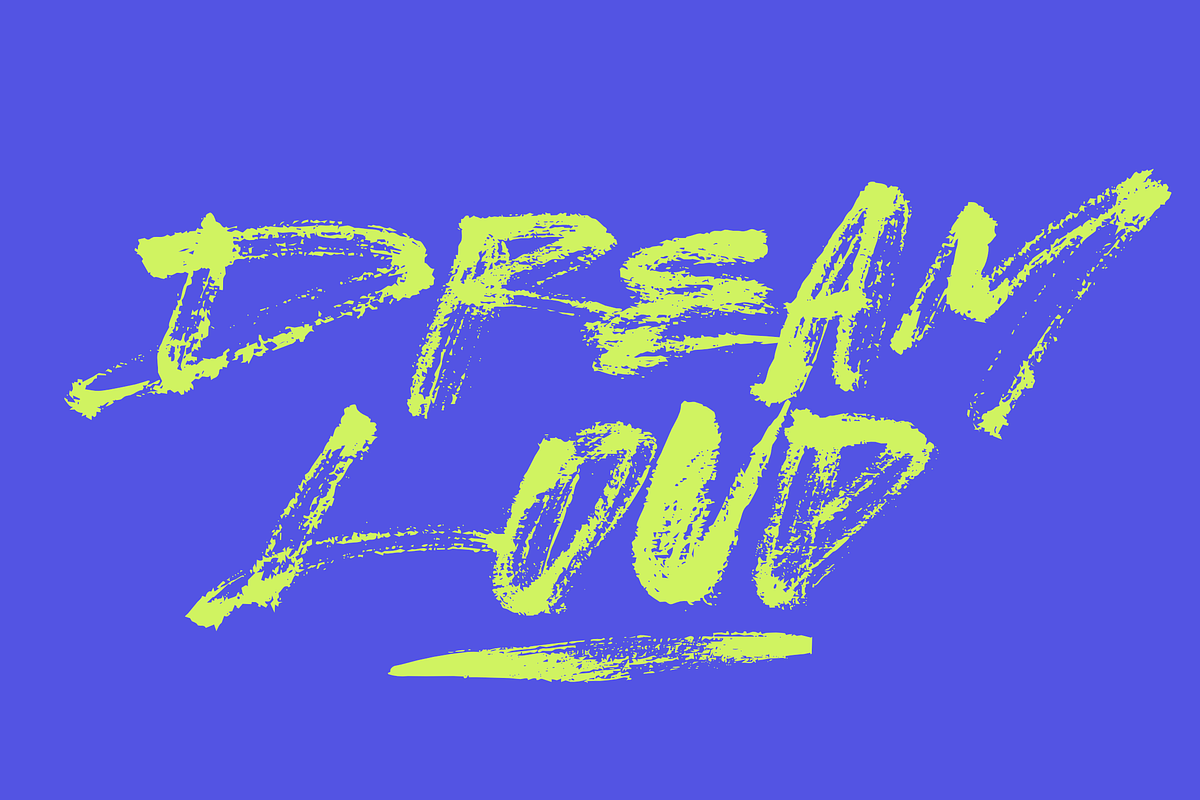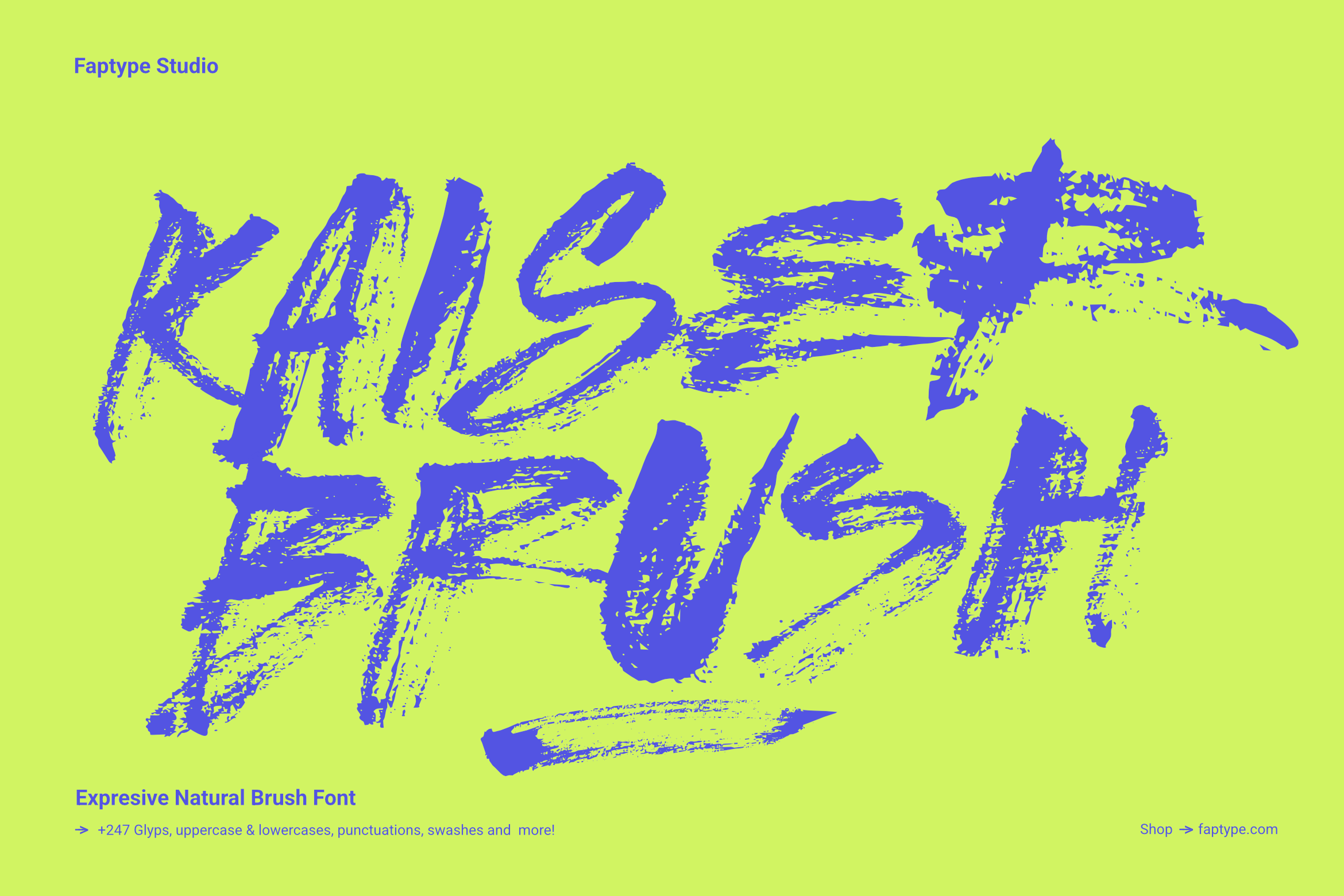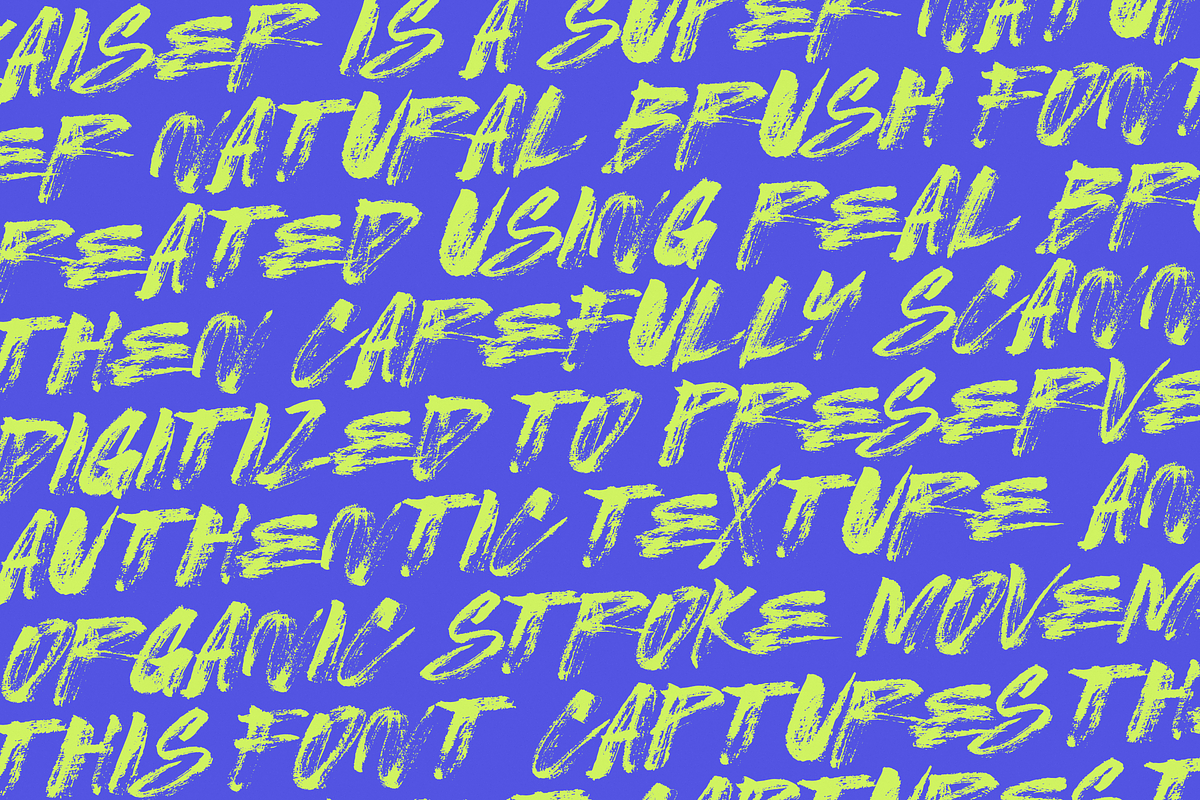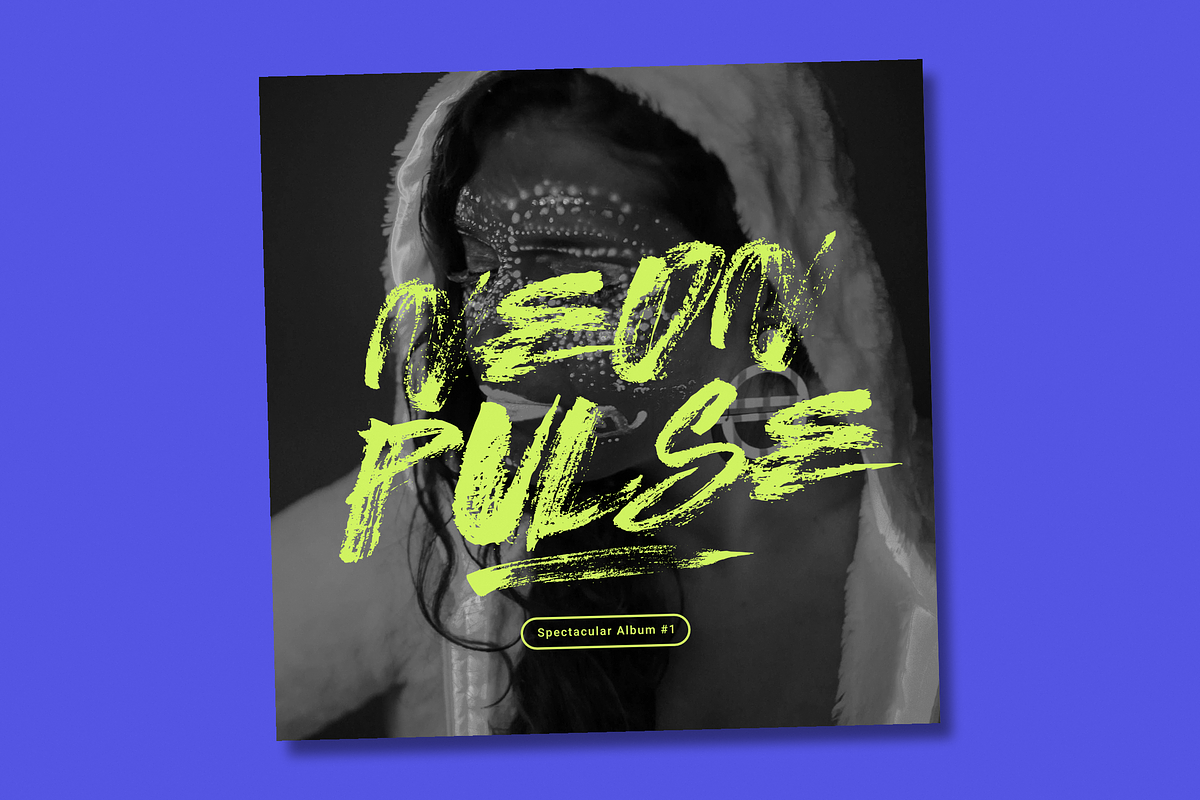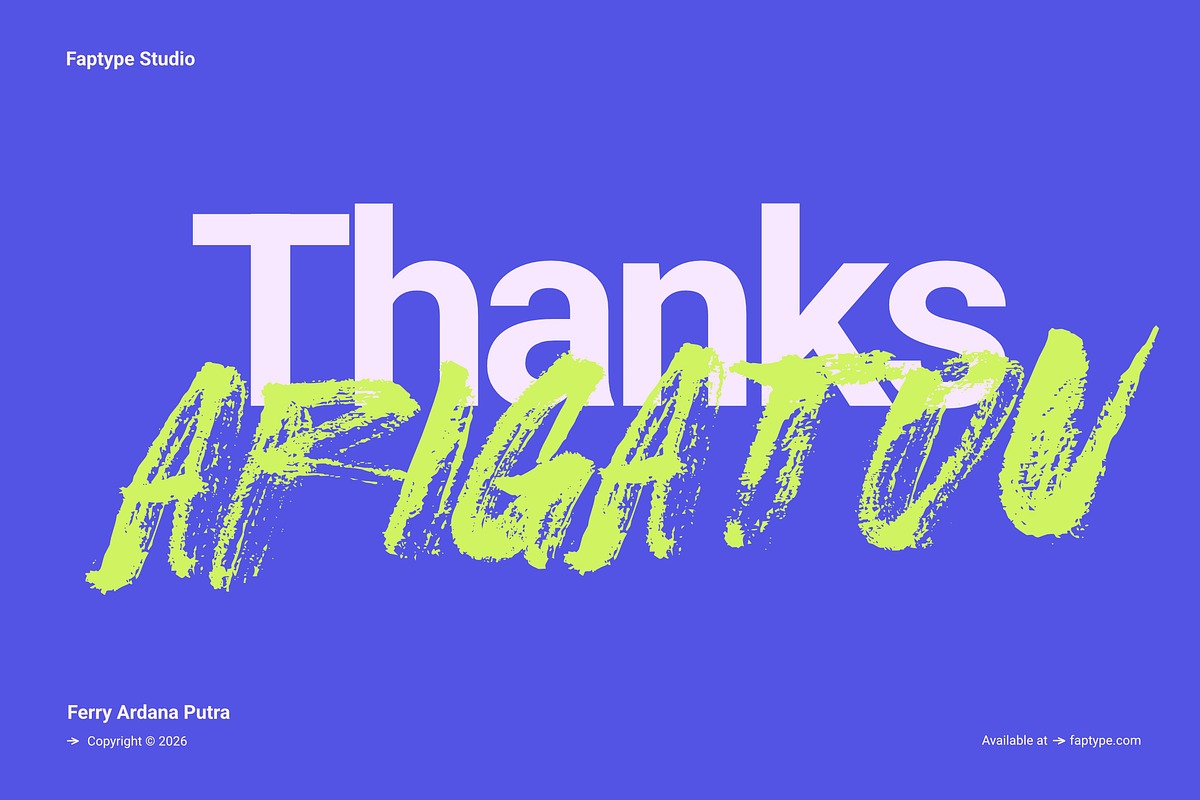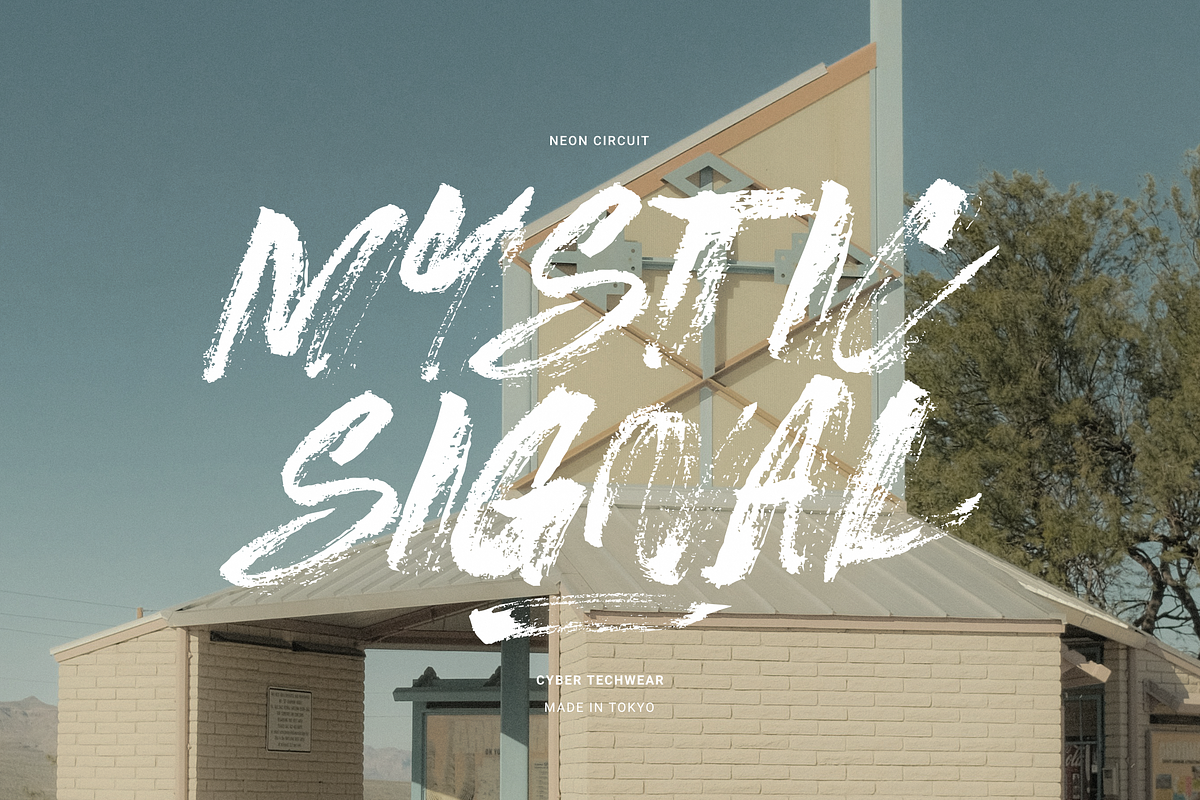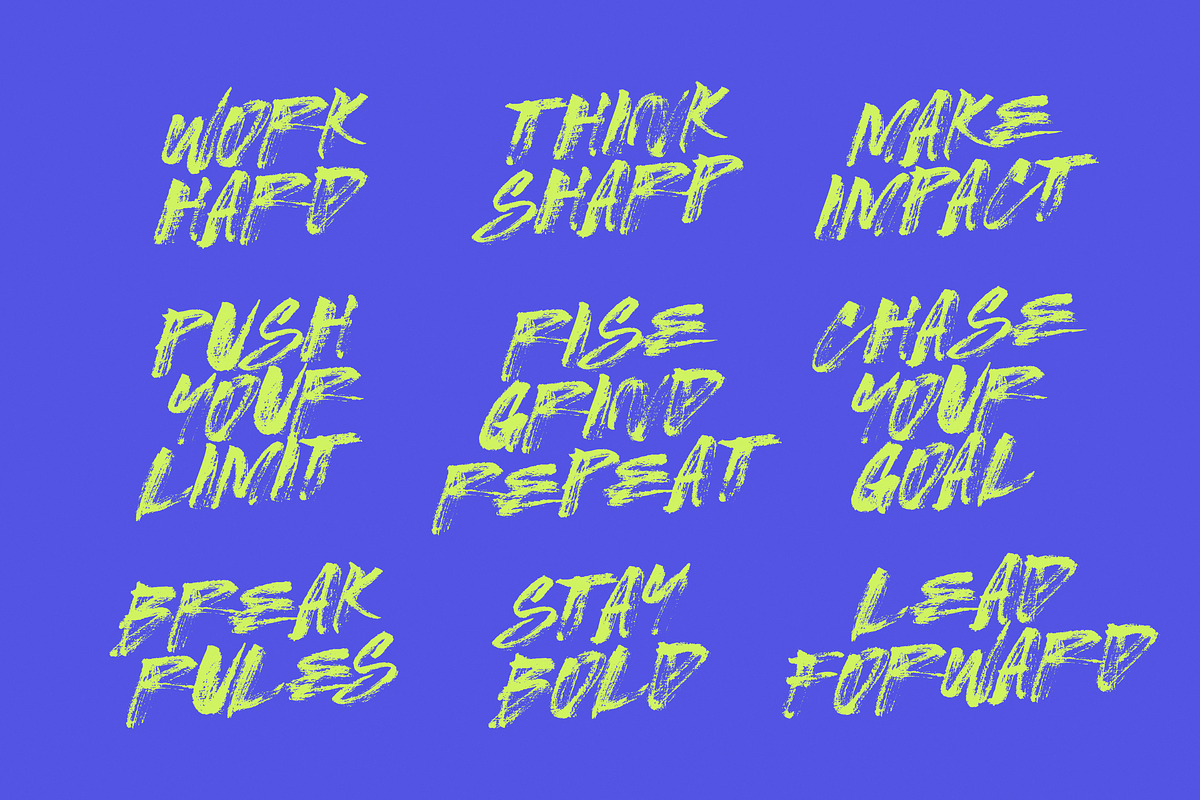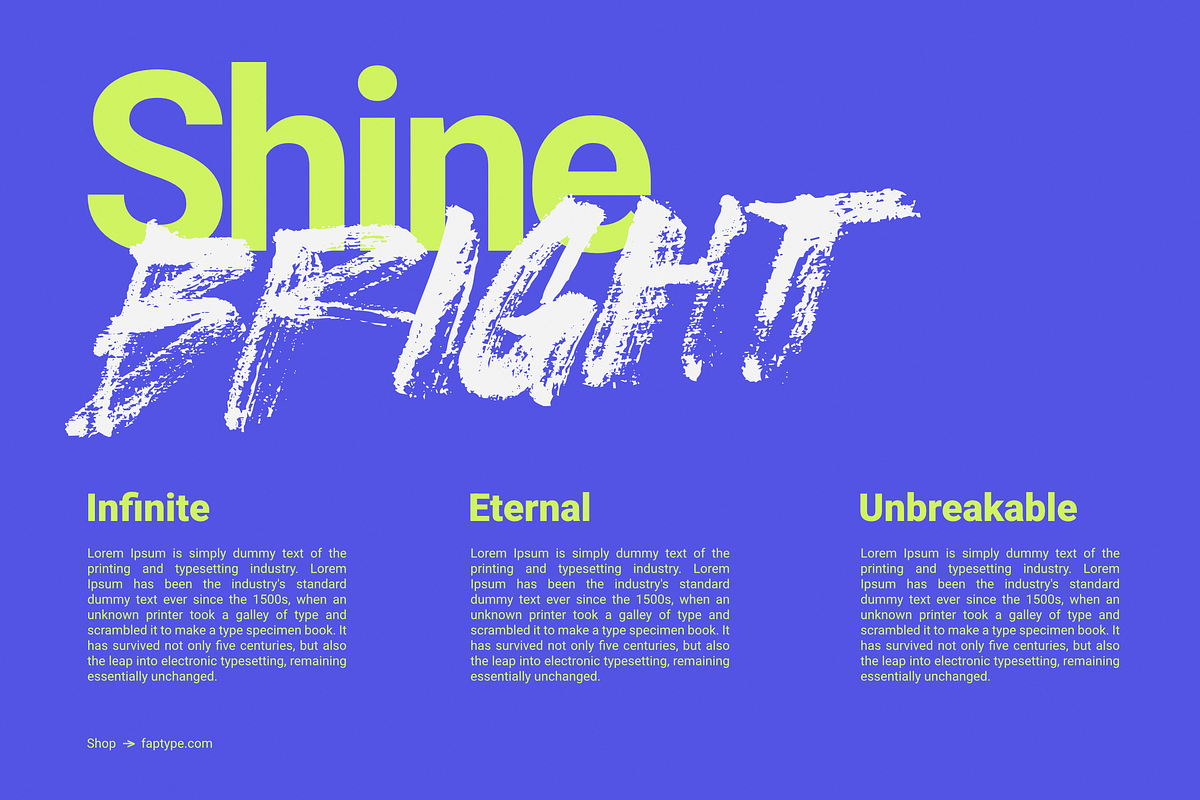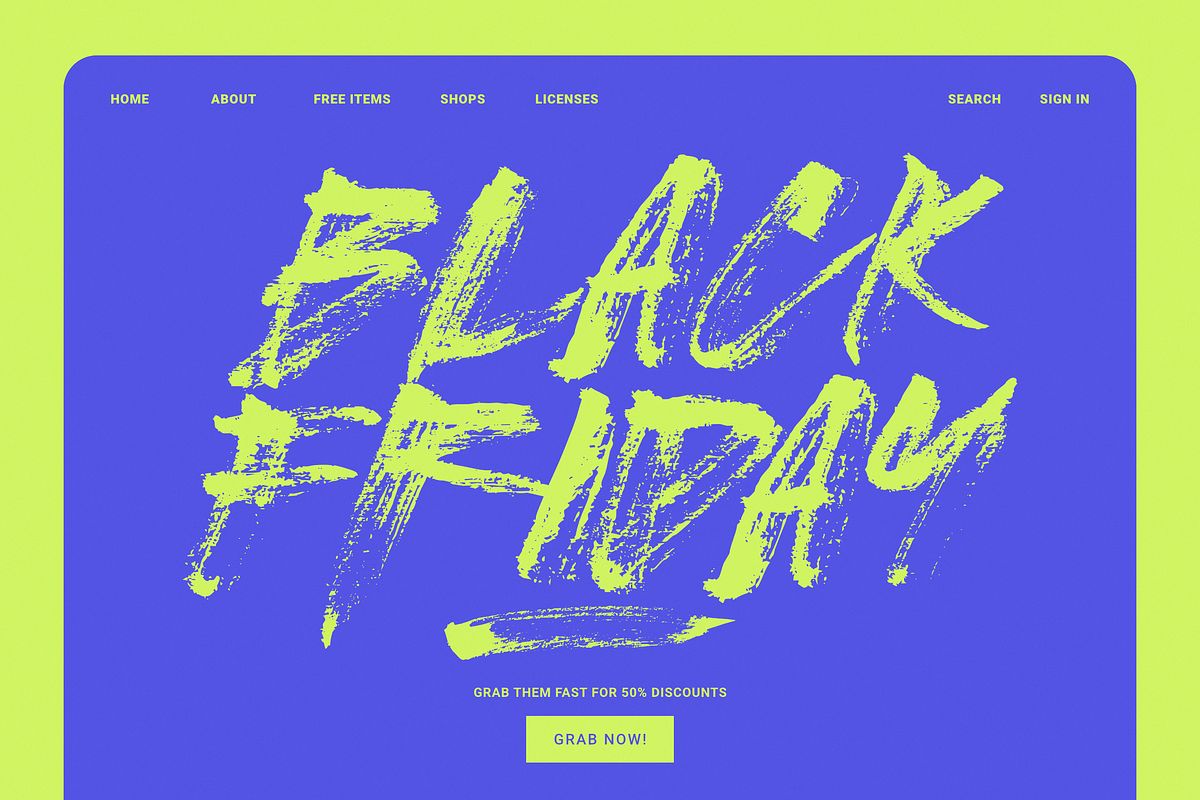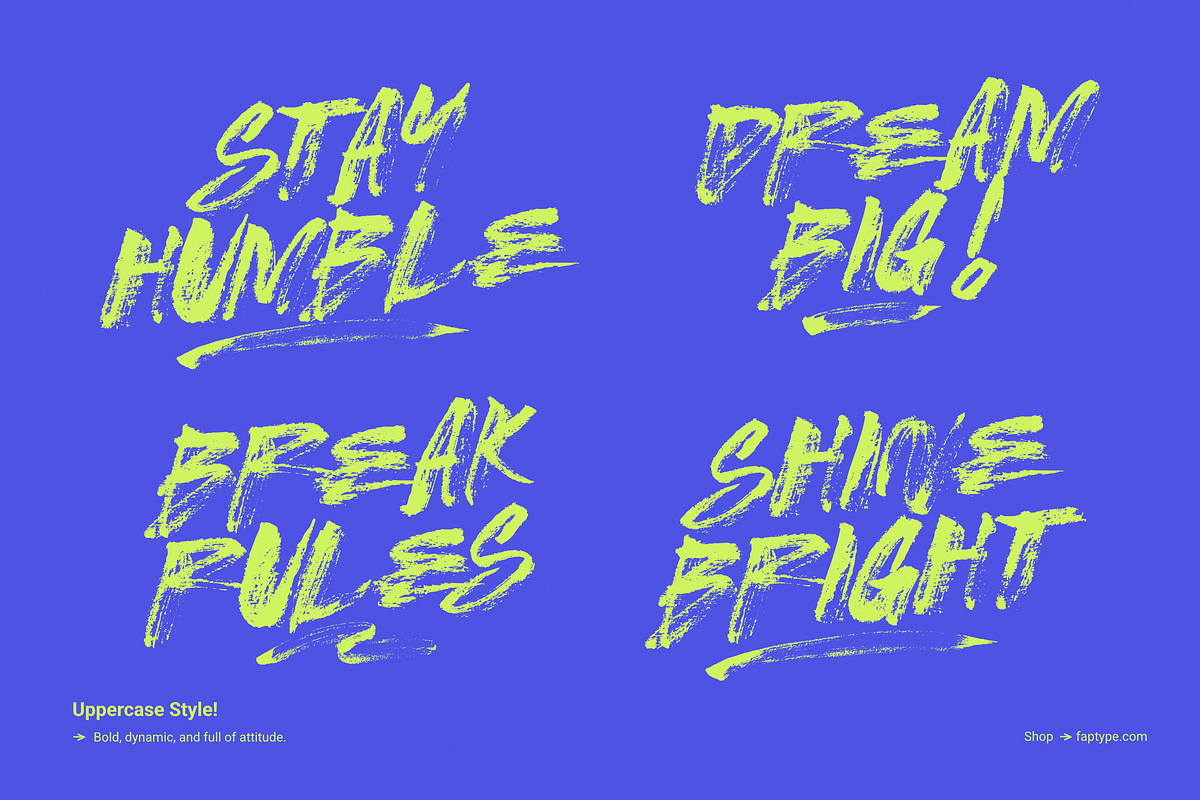
Kaiser | Super Natural Brush Font
Kaiser is a super natural brush font created using real brush and ink, then carefully scanned and digitized to preserve its authentic texture and organic stroke movement. This font captures the raw beauty of traditional brush lettering with a natural, expressive, and timeless feel.
Unlike digital brush simulations, Kaiser maintains real ink flow, pressure variation, and natural imperfections—making it a perfect choice for designers who want a genuine handcrafted look.
Super Natural Brush Font With Authentic Ink Texture
Kaiser is designed as a true super natural brush font, combining traditional brush techniques with modern usability. Each character reflects real hand movement, resulting in fluid strokes and organic rhythm.
The natural ink texture gives the font a soft yet bold personality, making it ideal for designs that need warmth, authenticity, and artistic expression.
Kaiser includes:
- Uppercase letters (A–Z)
- Lowercase letters (a–z)
- Numerals (0–9)
- Symbols & punctuation
- Alternate characters for natural variation
- Smooth handwritten flow
The alternate characters help create more realistic and dynamic lettering compositions.
Authentic Handmade Brush Style
This super natural brush font was created using real brush and ink, then scanned to retain:
- Natural brush pressure
- Organic stroke movement
- Ink texture and grain
- Slight imperfections that add character
These details make Kaiser feel alive and truly handcrafted.
Kaiser works perfectly for:
- Logo branding
- Handmade product packaging
- Wedding invitations
- Social media content
- Quotes and typography design
- Lifestyle branding
- Artisan and craft projects
Why Choose Kaiser?
- Created with real brush and ink
- Authentic scanned texture
- Natural and organic brush flow
- Includes alternate characters
- Perfect for warm and expressive designs
Kaiser is built for designers who want a natural, human touch in their typography.
Features of Kaiser Font
Uppercase & lowercase letters
252+ glyphs
Dry brush swashes included